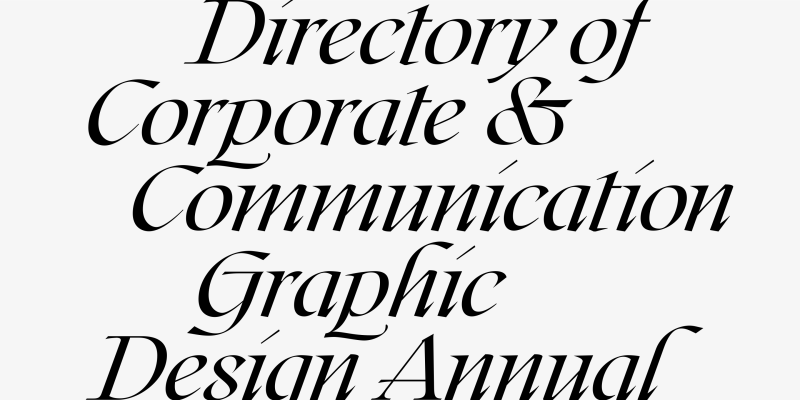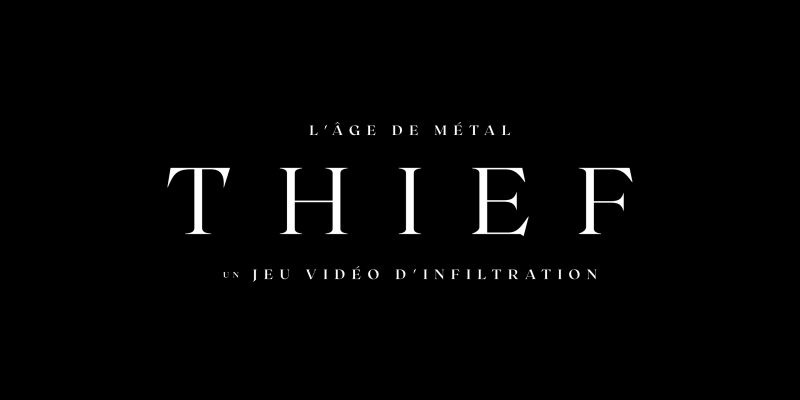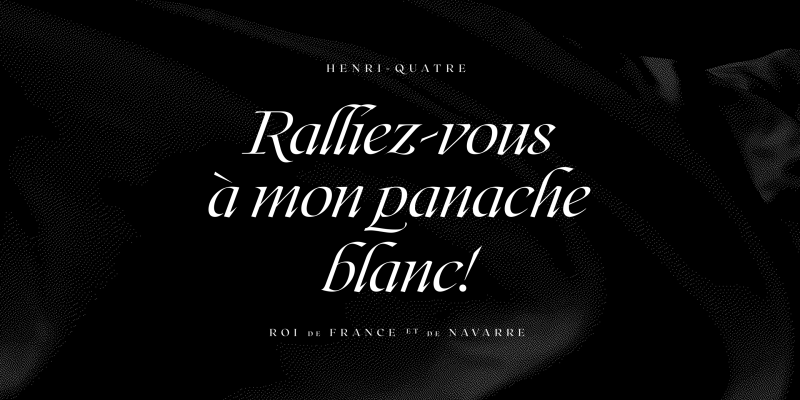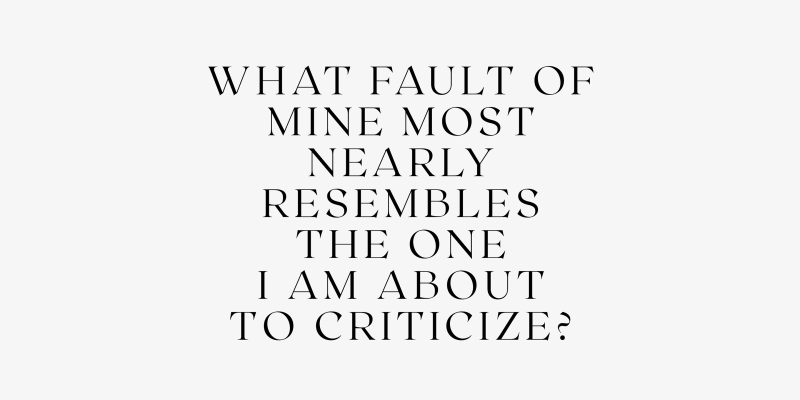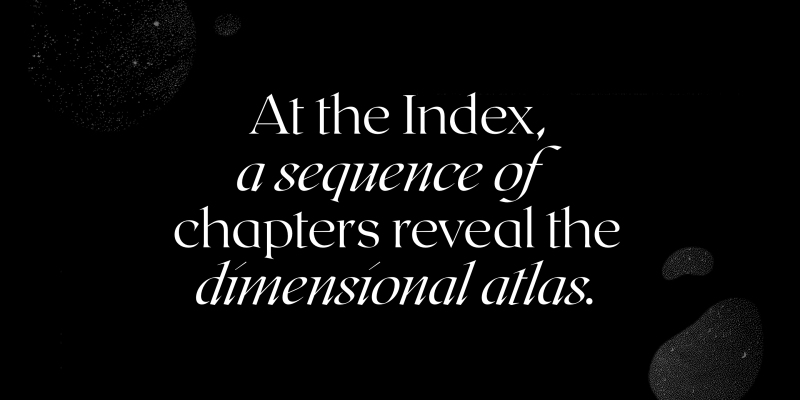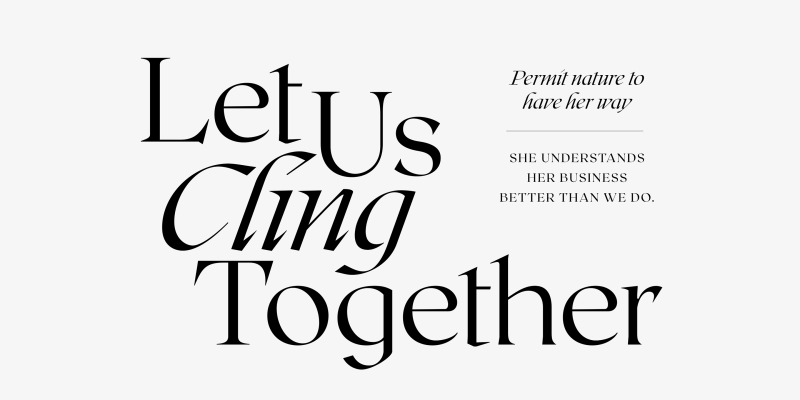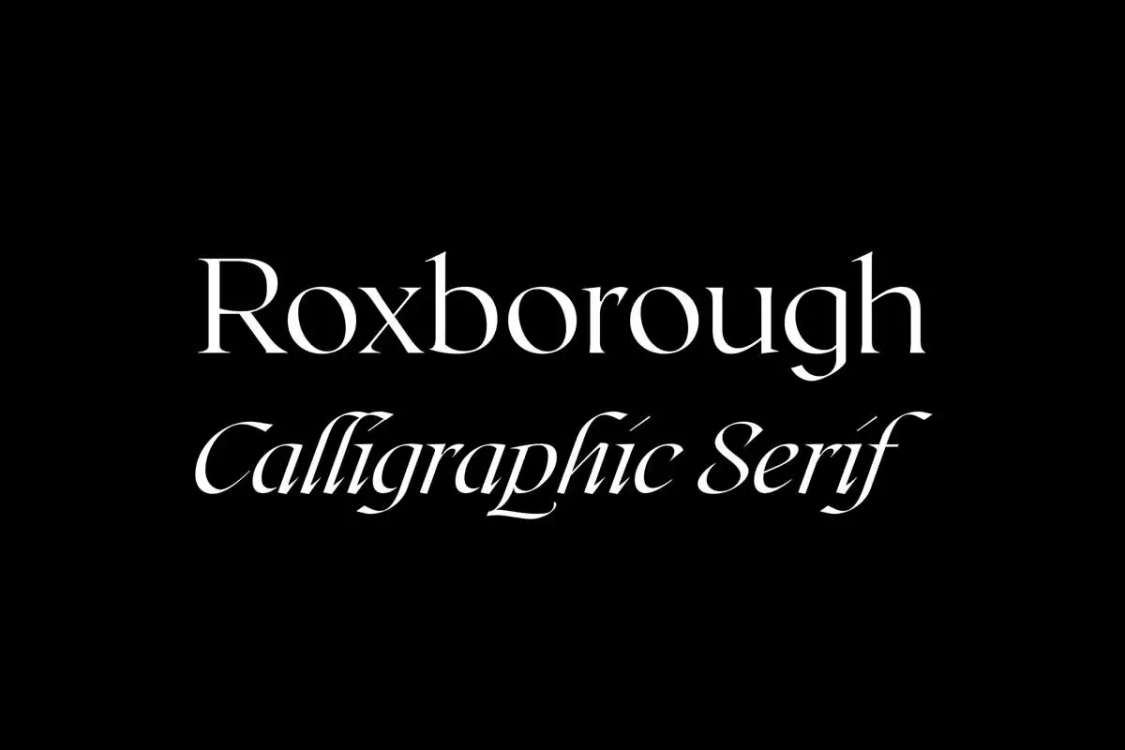
Roxborough Font
Roxborough is a dashing serif font with a calligraphy bent, which comes from the mixture of calligraphy and hand lettering for a unique customized typeface outcome. The basic glyph is a small and distinctive one-storey that permeates and influences the whole of the typeface, making it appear refined and polished.
Every curve and letter of Roxborough Font is deliberately created to inspire admiration and help an imagination run wild. The highly effective italics can make any text with an artful touch deeper by bringing a new dimension.
Whether gracefully staring at the pages of a fashion magazine shoot, adorned with the packaging of a high-luxury product, or beautifully taking over the interface of a digital brand, Roxborough FU will be the cause of attention and hard to forget. It’s highly sought after by designers looking for ways to sprinkle sophistication and a creative touch into their projects.
In an era where typography is usually overshadowed, Roxborough Font is a design statement that endorses the strength of well-designed visuals. This is not only about providing information but also about producing an exciting and engaging event that intends to generate emotion and creativity. Every word that emits from Roxborough CF illustrates another life masterpiece.
Where Roxborough Font works best
Roxborough Font gives long-form text a classic, trustworthy rhythm — ideal for magazine spreads, annual reports and book interiors.
Pair Roxborough Font with generous letter-spacing for wordmarks in fashion, hospitality, wine and jewellery branding.
Use Roxborough Font for slide titles in Keynote, PowerPoint or Google Slides to add authority without looking dated.
What is Roxborough Font good for?